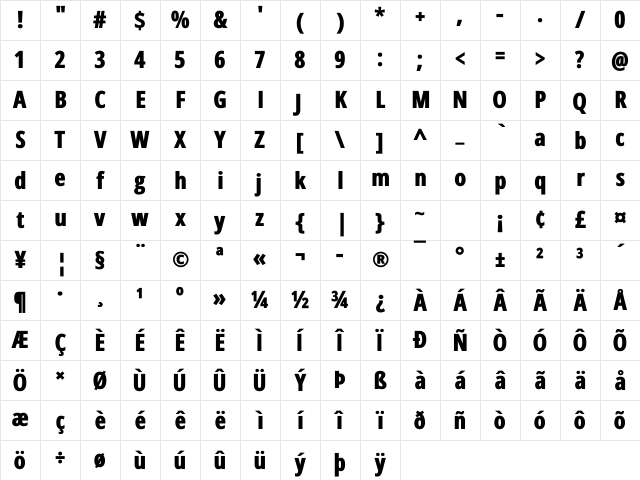
Complete Open Sans Hebrew Condensed Extra Bold Regular glyph index. Displaying only characters natively supported by Open Sans Hebrew Condensed Extra Bold Regular font.
Open Sans Hebrew Condensed Extra Bold is a composed and adaptable typeface that performs quietly and consistently across a wide range of design contexts. Its bold stroke weight gives it real presence on the page. Its narrow stance lets it pack a punch even in space-constrained designs.